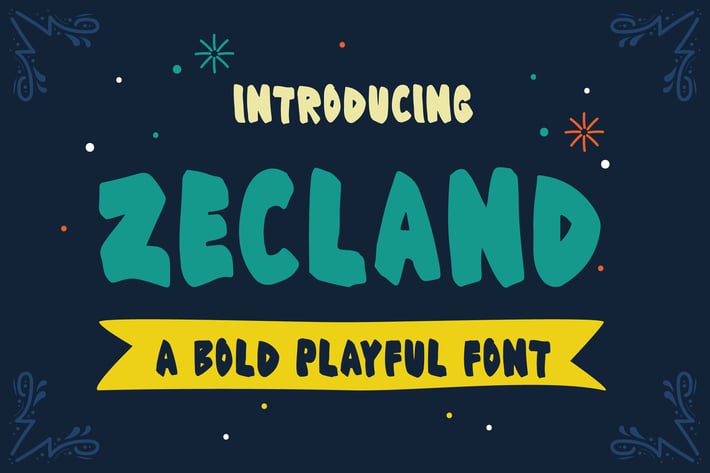
Zecland - A Bold Playful Font
IanMikraz
So beautiful on invitation like greeting cards, branding materials, business cards, quotes, posters, and more!